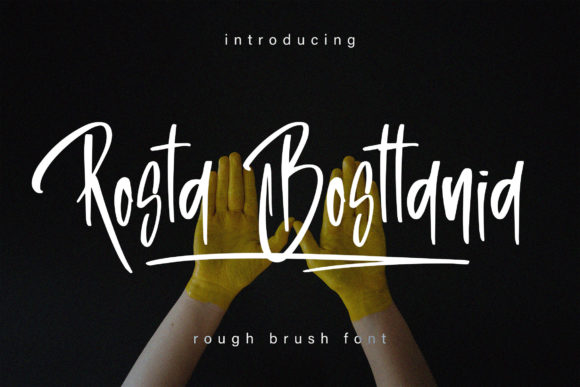
Discover the Enchanting Rosta Bosttania Font: A Journey Through Vintage Elegance
In a world where digital creations reign supreme, the Rosta Bosttania font emerges as a timeless treasure, a testament to the enduring allure of vintage aesthetics. This enchanting script font, meticulously crafted by the talented dwikrisdiantoro9, captures the essence of yesteryears, inviting you on a nostalgic adventure through the realm of design.
With its relaxed theme and captivating style, Rosta Bosttania seamlessly blends the charm of the past with the vibrancy of the present. Its graceful strokes and elegant curves evoke a sense of nostalgia, while its versatility ensures that it effortlessly complements a wide range of creative projects. Whether you're designing logos, branding materials, invitations, or simply adding a touch of vintage charm to your personal projects, Rosta Bosttania stands ready to elevate your creations.
Immerse yourself in the world of Rosta Bosttania and let your imagination soar. Picture the delicate swirls of this script font gracing your wedding invitations, imbuing them with a timeless elegance that will be cherished for years to come. Envision the impact of Rosta Bosttania on your social media posts, where its captivating style will draw eyes and captivate audiences. Unleash your creativity and explore the endless possibilities that await with this remarkable font.